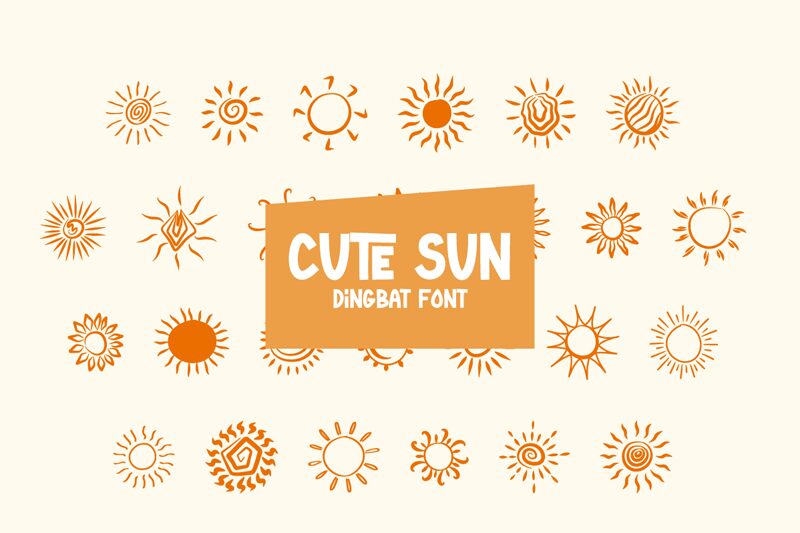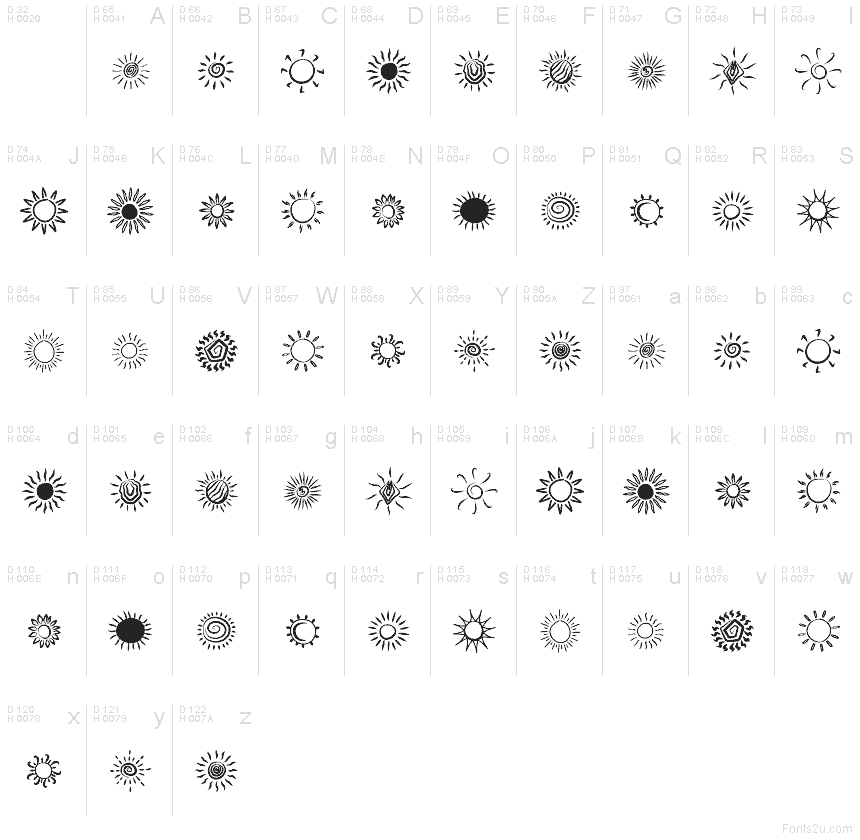
Cute Sun
Cute Sun font by Muhammad Yafinuha is a free nature dingbat typeface that solves the “I just need a friendly sun” problem in seconds. Each glyph is a different hand-drawn burst—spiky rays, wavy heat lines, petal-like flares, and inky circles with a gentle wobble—so you can swap moods without redrawing a thing. The strokes feel warm and sketchy, like marker on paper, giving quick artwork a human touch.
Using Cute Sun, you can brighten summer posters, weather icons, kids’ crafts, eco packaging, classroom materials, social stickers, and event flyers. The varied weights read clearly at small sizes and pop when enlarged; sprinkle them as bullets or anchors. This free font pairs naturally with a clean geometric sans to keep the cheerful illustrations grounded.